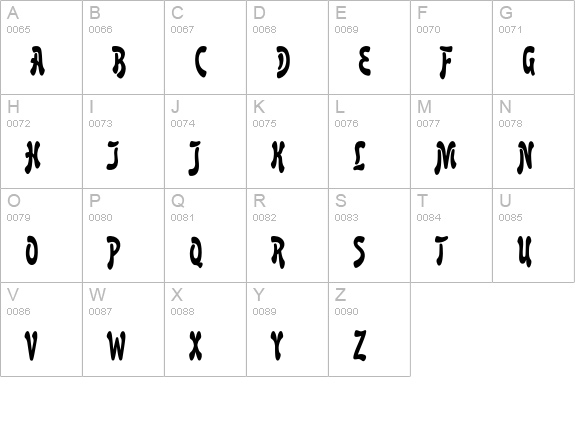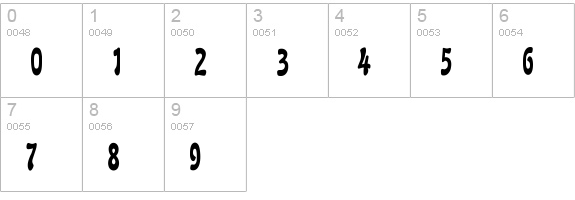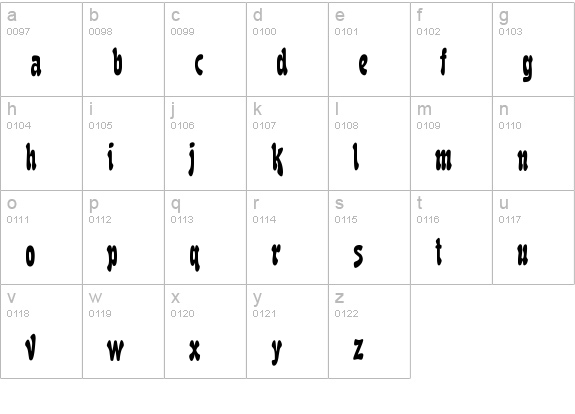
Boutique Font Details
Boutique font is a sophisticated and elegant typeface designed for those who seek a touch of luxury in their designs. With its sleek lines and stylish curves, this font exudes a sense of sophistication and class. Whether you're working on a fashion magazine, luxury branding, or elegant invitations, Boutique font is the perfect choice to elevate your projects to the next level. The best part? Boutique font is available for free download at FontsMarket.com, making it easily accessible to designers looking to add a touch of elegance to their work without breaking the bank. Don't miss out on this opportunity to enhance your designs with the timeless beauty of Boutique font. Download it today and see your projects shine with style and sophistication.